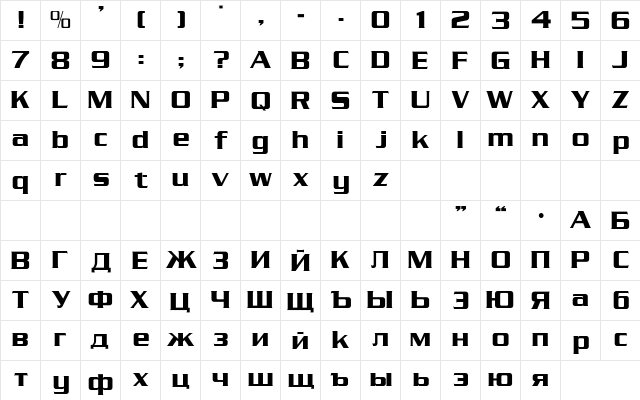
Serpentine Rus Regular
Design Context for Serpentine Rus Typeface
Serpentine Rus is a composed and adaptable typeface that performs quietly and consistently across a wide range of design contexts.
Pro Tip: Use Serpentine Rus in both headline and body roles to test its range before committing to a single application.